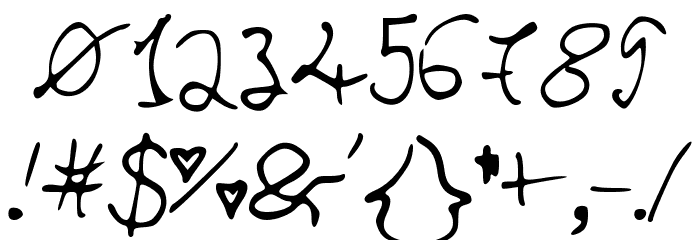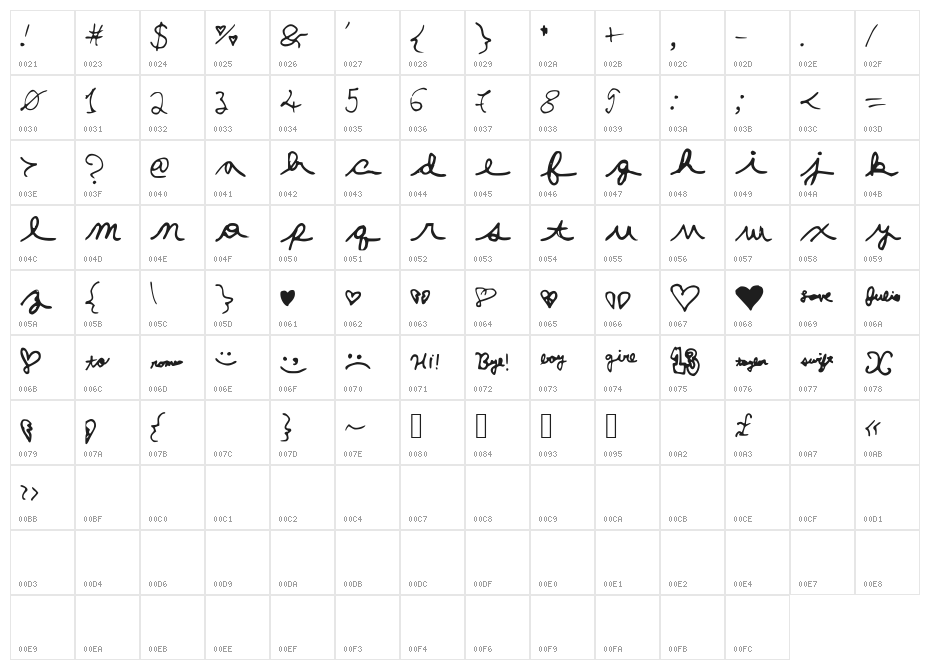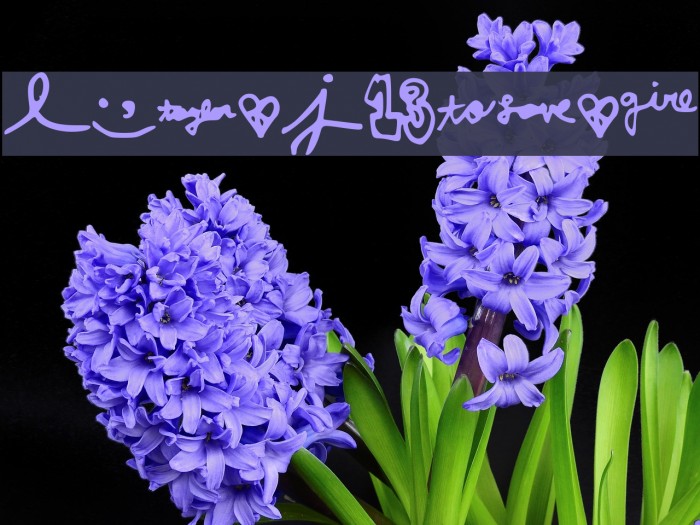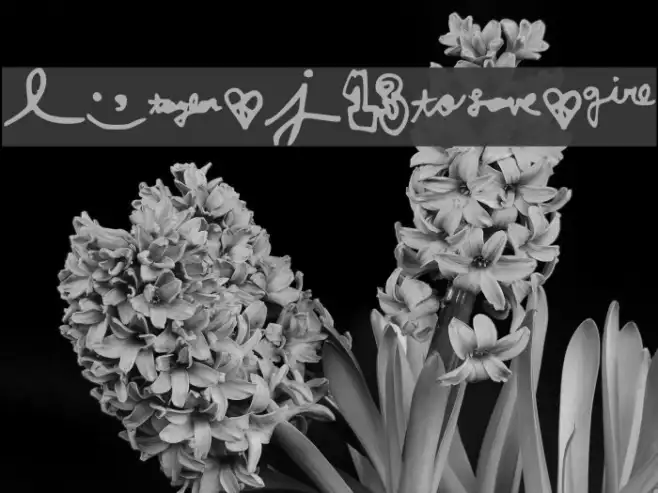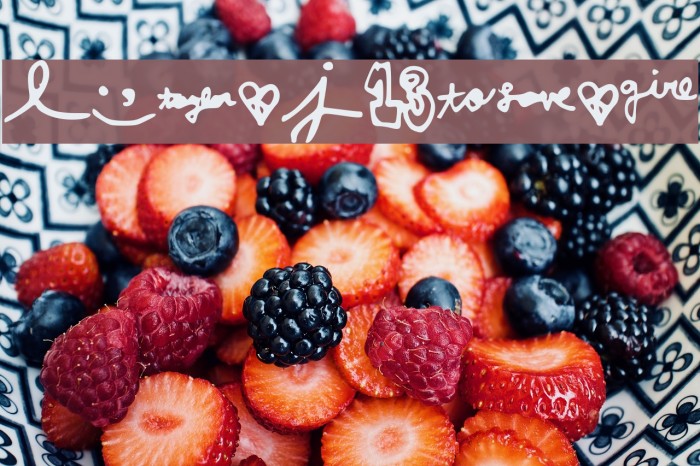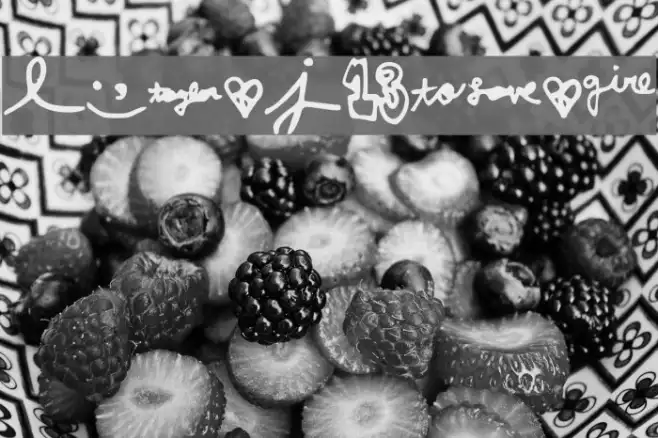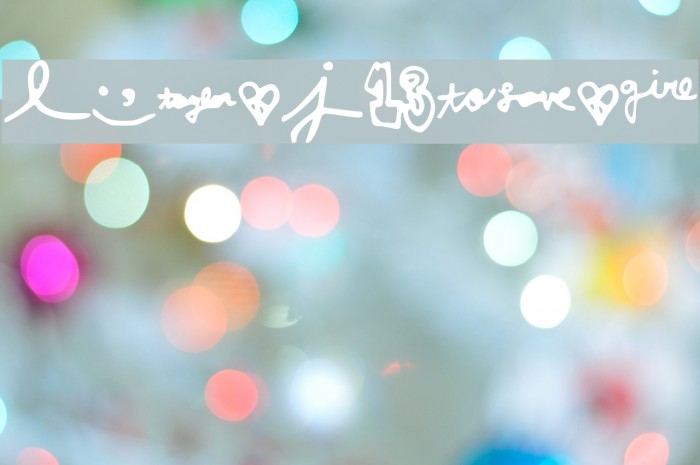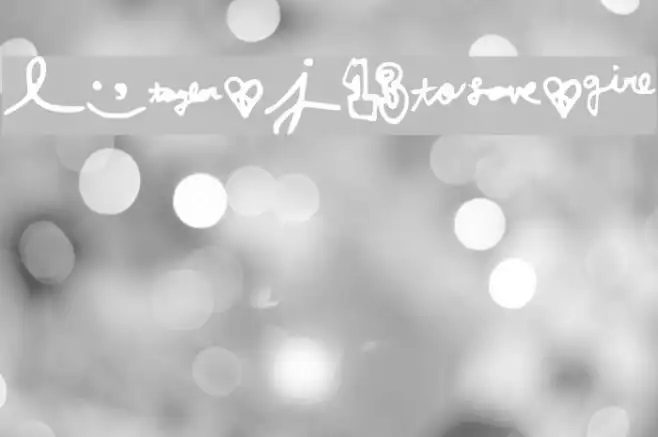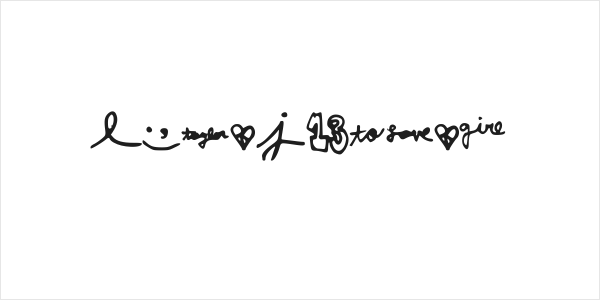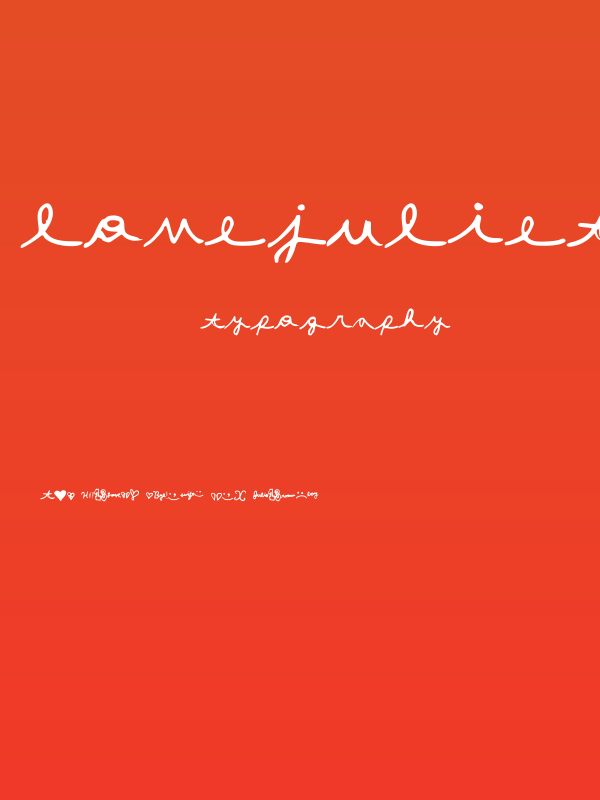
LoveJuliet Font
LoveJuliet Description
This playful and whimsical font features a handwritten style with a casual, flowing script. The letters are connected in a fluid manner, giving it a personal and informal feel. The strokes vary in thickness, adding a dynamic and lively touch to the text. The font includes a variety of heart shapes and playful symbols, enhancing its romantic and fun character. It is ideal for projects that require a personal touch, such as greeting cards, invitations, or social media graphics. The numbers and punctuation maintain the same playful style, ensuring consistency across all text elements.
| Use Case | Logos, Invitations, Social Media Graphics |
| Proposed Projects | Perfect for greeting cards, romantic invitations, playful social media graphics, and personal notes. |